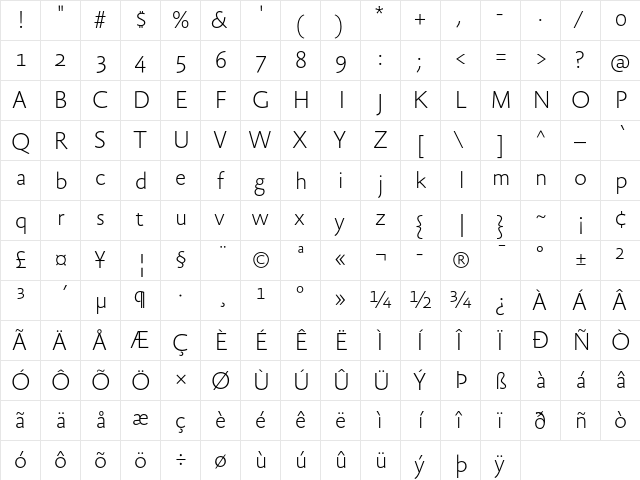
AbsaraSans-Thin Regular
Design Context for AbsaraSans-Thin Typeface
AbsaraSans-Thin takes a measured approach to typography — its balanced proportions and neutral character make it a reliable workhorse for both digital and print work. Its slender proportions lend an understated elegance to any composition.
Pro Tip: Use AbsaraSans-Thin in both headline and body roles to test its range before committing to a single application.